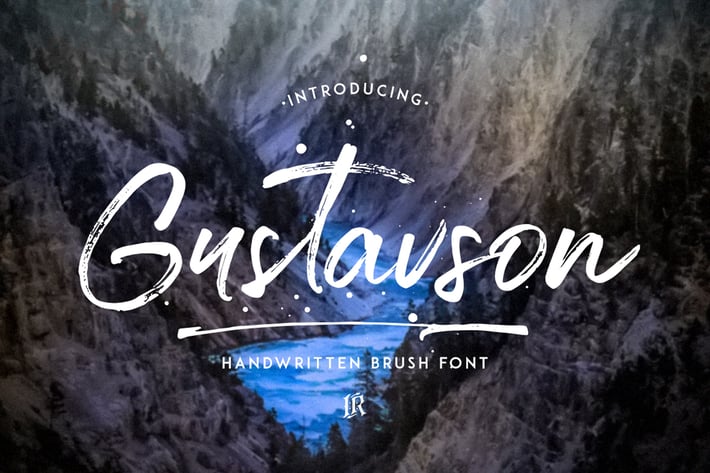
Gustavson Script Font
Gustavson Font is hand brushed font with multilingual support. Is ideal for t-shirts, magazines, phone covers, social media, restaurant menus, greeting cards, invitations, weddings, headers and many more.
This brush font comes with a complete set of lowercase and uppercase characters, a large range of punctuation ligatures, numerals and and multilingual support.
Gustavson Font is a set of glyphs, Upper and Lowercase with ligatures, numerals and lot of punctuation glyphs and 1-4 alternates for each character.
Gustavson Swashes - a set of 26 hand drawn swatches for text decoration
Gustavson Ink Splatters - 12 ink splatters in vector format